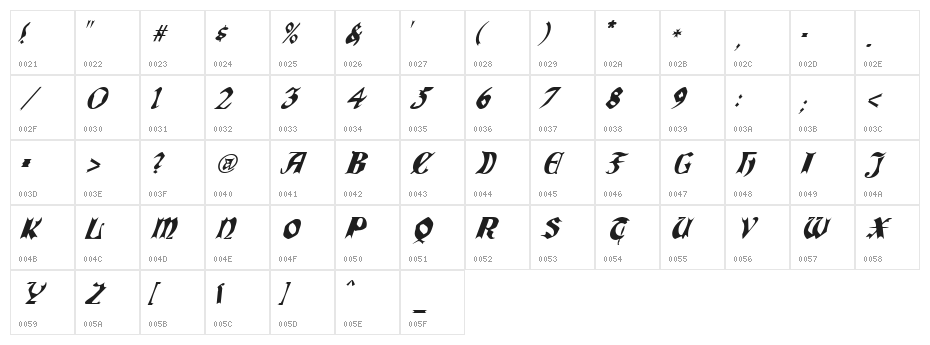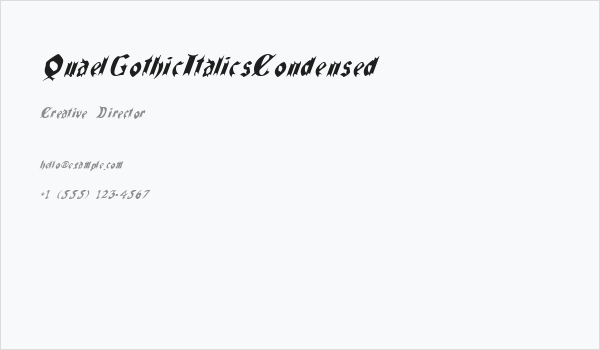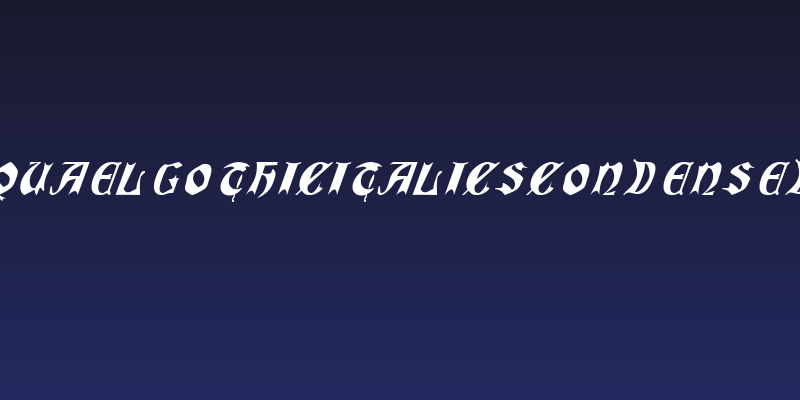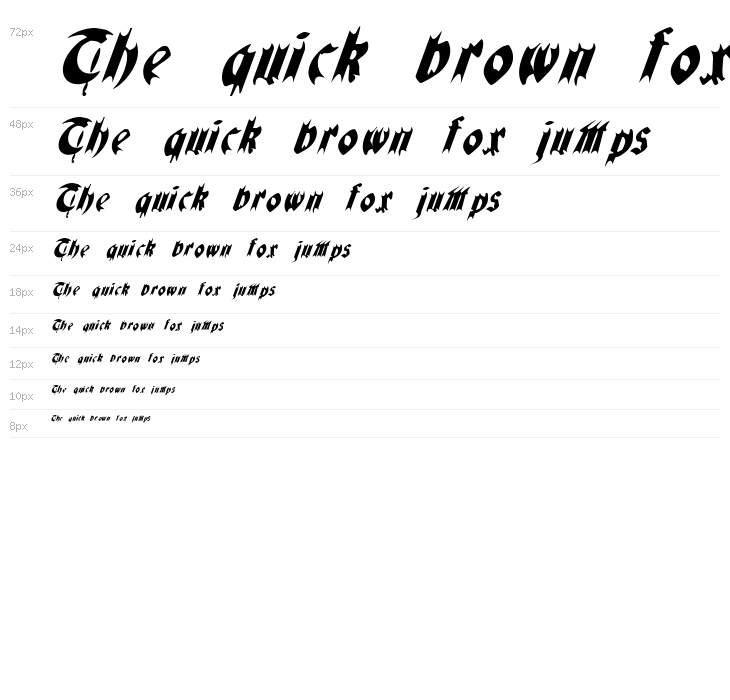
QuaelGothicItalicsCondensed Font
QuaelGothicItalicsCondensed Description
This font exhibits a bold and dramatic style, characterized by sharp, angular strokes and a condensed form. The italicized nature of the letters adds a dynamic and energetic feel, while the Gothic influence is evident in the pointed serifs and intricate detailing. The uppercase and lowercase letters maintain a consistent style, with a strong emphasis on vertical lines and sharp edges. Numbers and special characters follow the same design principles, ensuring a cohesive look across all elements. The overall appearance is striking and attention-grabbing, making it suitable for projects that require a bold statement.
| Proposed Projects | Ideal for branding, posters, album covers, and any design needing a dramatic and bold aesthetic. |